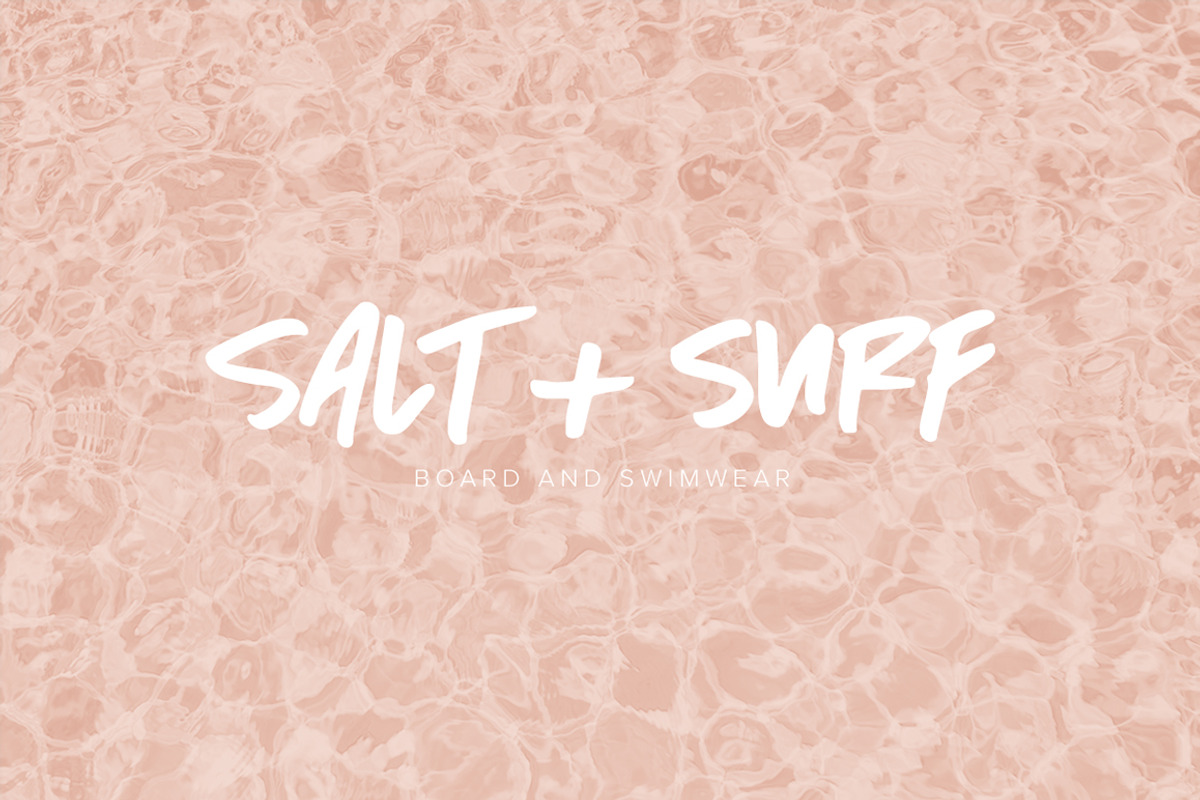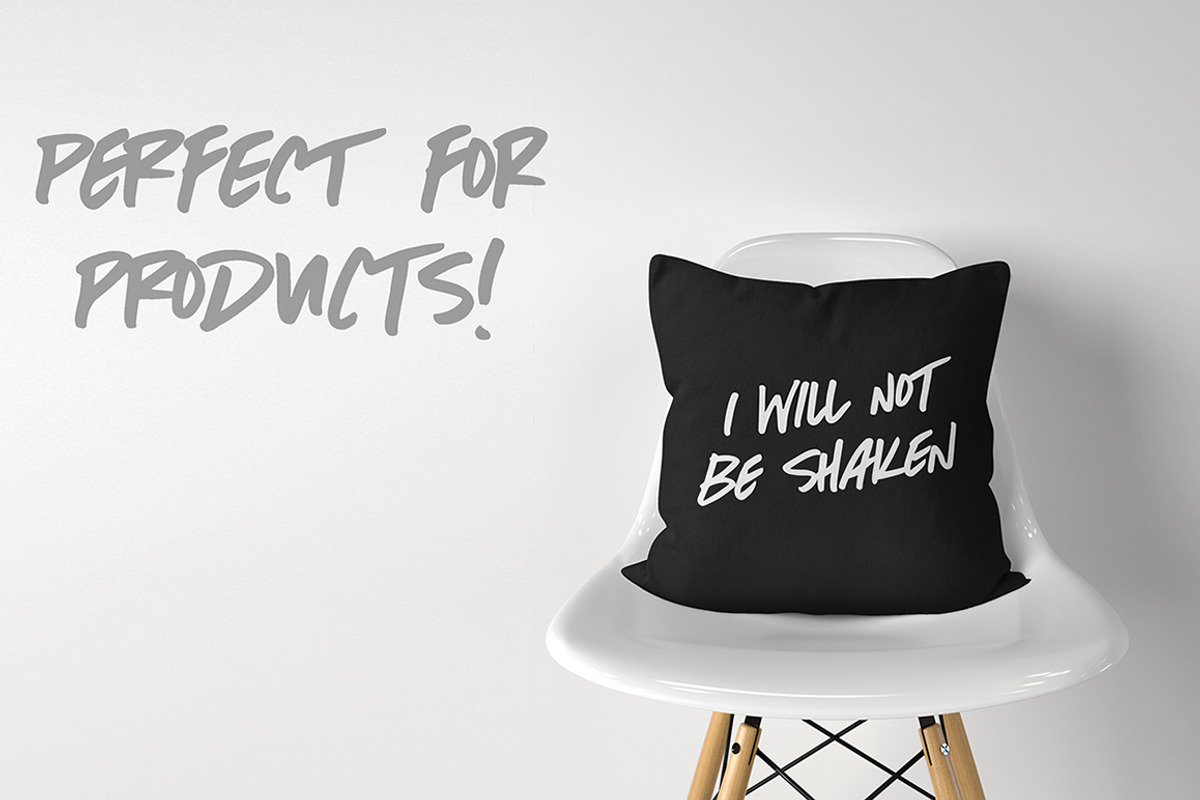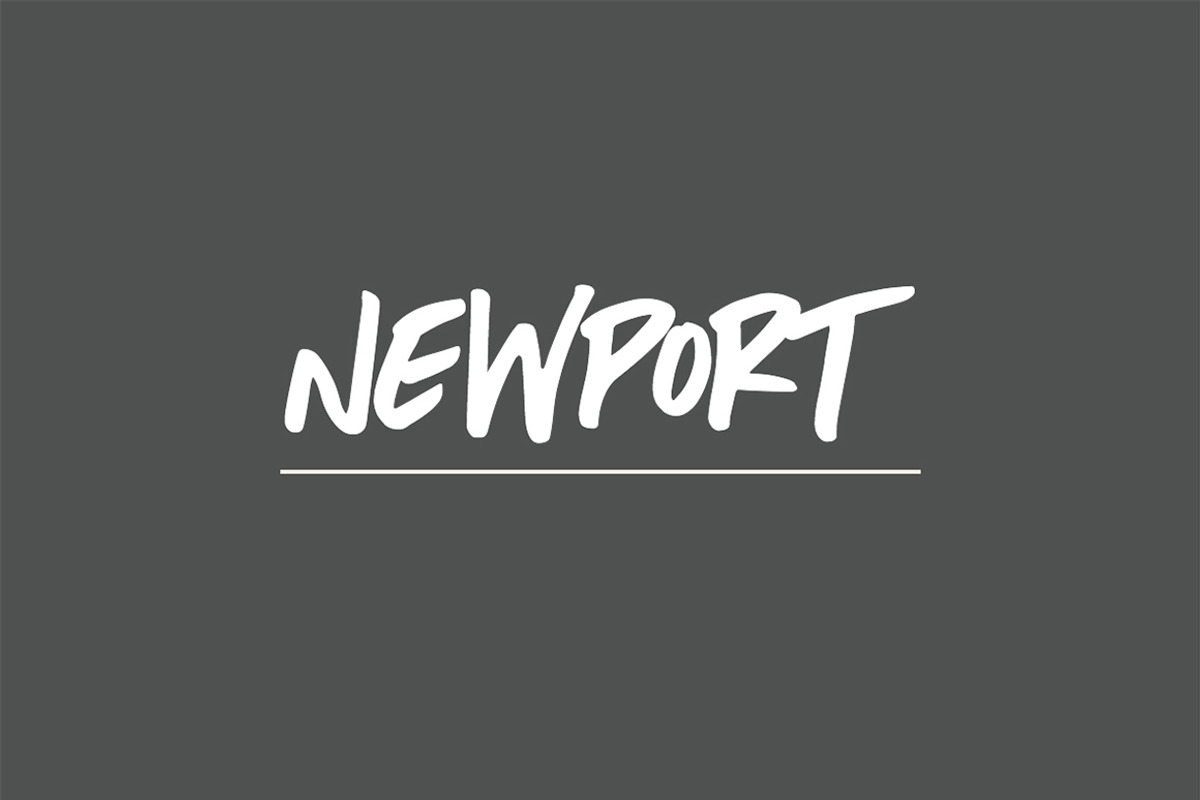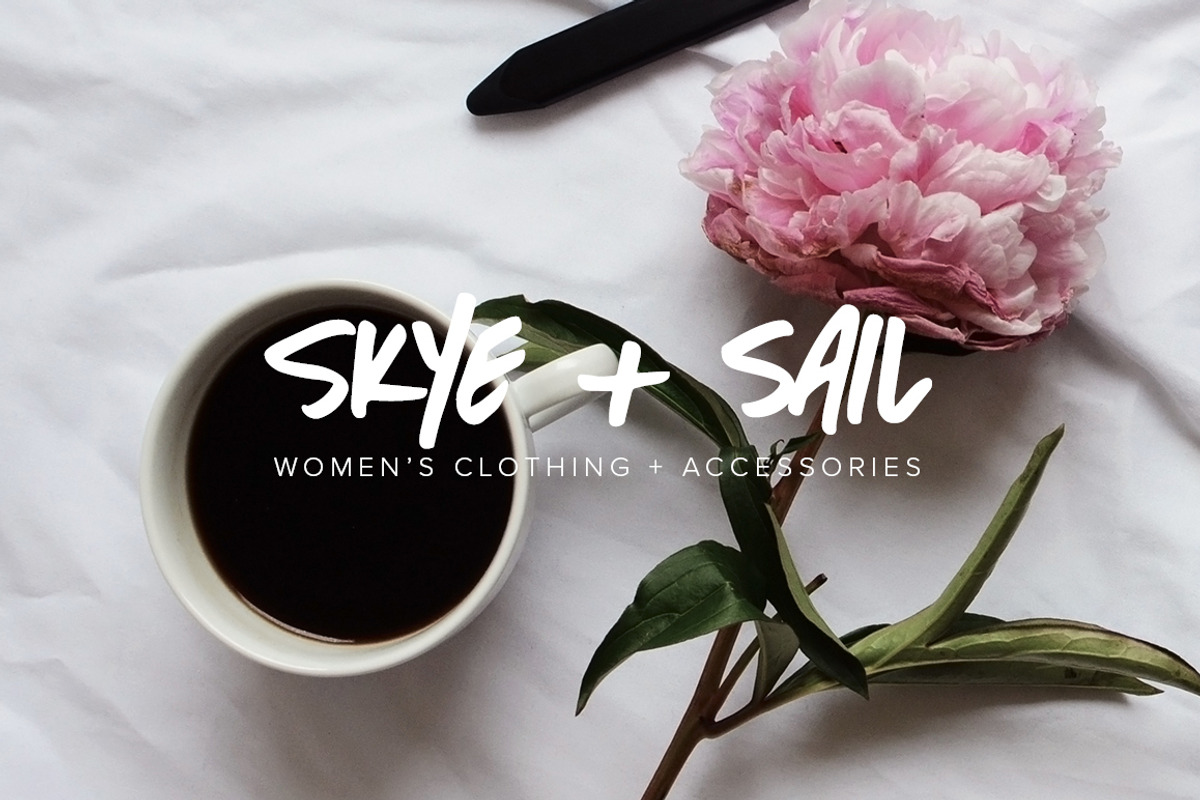
Newport | A Beachy Handwritten Font
Newport is a beachy and fun handwritten all-caps font that is absolutely perfect for quotes, products, logos, packaging, and so much more! Fresh and clean, it's beautiful when used for cosmetic and feminine contexts, but is also masculine enough to be used for strong logos and branding.
Alternate letters are available via the lowercase letters so your double letters look great together!
Alternate uppercase letters via lowercase (So typing "Aa" will use both versions of the letter "A")
Numbers + punctuation